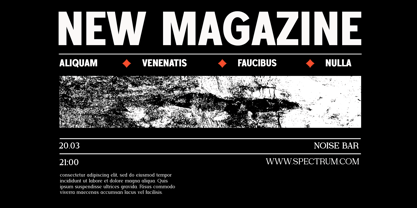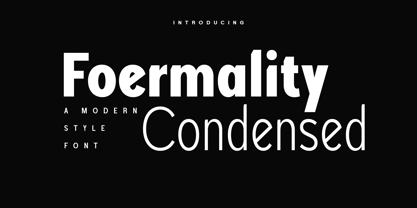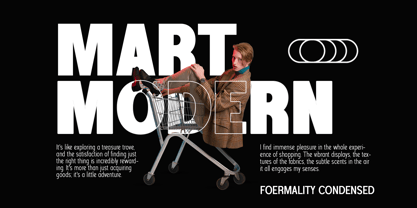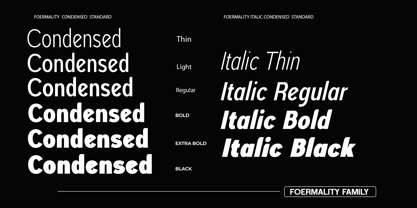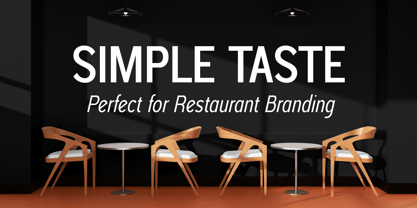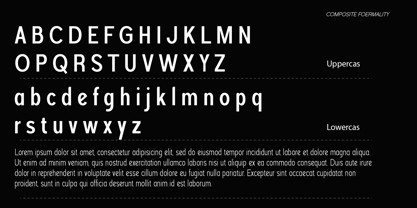
Foermality Condensed
by Laroyba Type
The Foermality Condensed Font Family was designed by Habib Abdur Rofi and published by Laroyba Type. Foermality Condensed contains 18 styles and family package options. More about this family
Foermality Condensed is a refined sans serif typeface designed to deliver elegance in a compact form. As part of the larger Foermality superfamily, this condensed version is crafted to maximize space efficiency without sacrificing clarity, style, or sophistication. Built with a clean geometric foundation and subtle humanist touches, Foermality Condensed strikes a balance between modern minimalism and formal expression. Its narrow proportions make it highly versatile for layouts that demand strong visual impact within limited space—such as editorial headlines, branding, packaging, posters, and digital interfaces. The typeface offers a carefully structured family with multiple weights and stylistic consistency, allowing designers to create harmonious typographic systems. Each character is thoughtfully drawn to maintain readability even at smaller sizes, while still delivering a distinctive personality when used in large-scale compositions. Foermality Condensed is not just about saving space—it’s about elevating it. Key Features: Complete family with multiple weights Elegant condensed proportions Clean and modern sans serif structure Excellent readability for both print and digital Ideal for branding, editorial, packaging, and UI design
Designers: Habib Abdur Rofi
Foundry: Laroyba Type